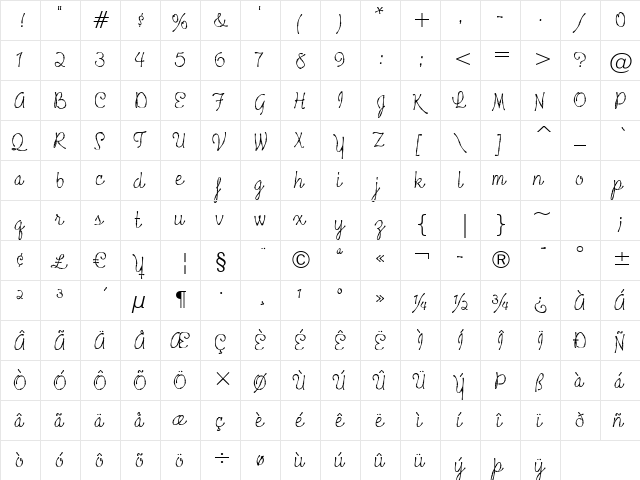
Tropicali Script BTN Bamboo Regular
Design Context for Tropicali Script BTN Bamboo Typeface
Tropicali Script BTN Bamboo brings a calligraphic fluidity to the page — its connecting strokes and expressive curves give it an unmistakably human quality.
Font Pairing: Combine Tropicali Script BTN Bamboo with a simple geometric sans for maximum contrast — the tension between flowing curves and clean structure is a classic typographic pairing.
Pro Tip: Use Tropicali Script BTN Bamboo for short runs of text — names, titles, or taglines. Extended body copy in script faces tires the eye quickly.